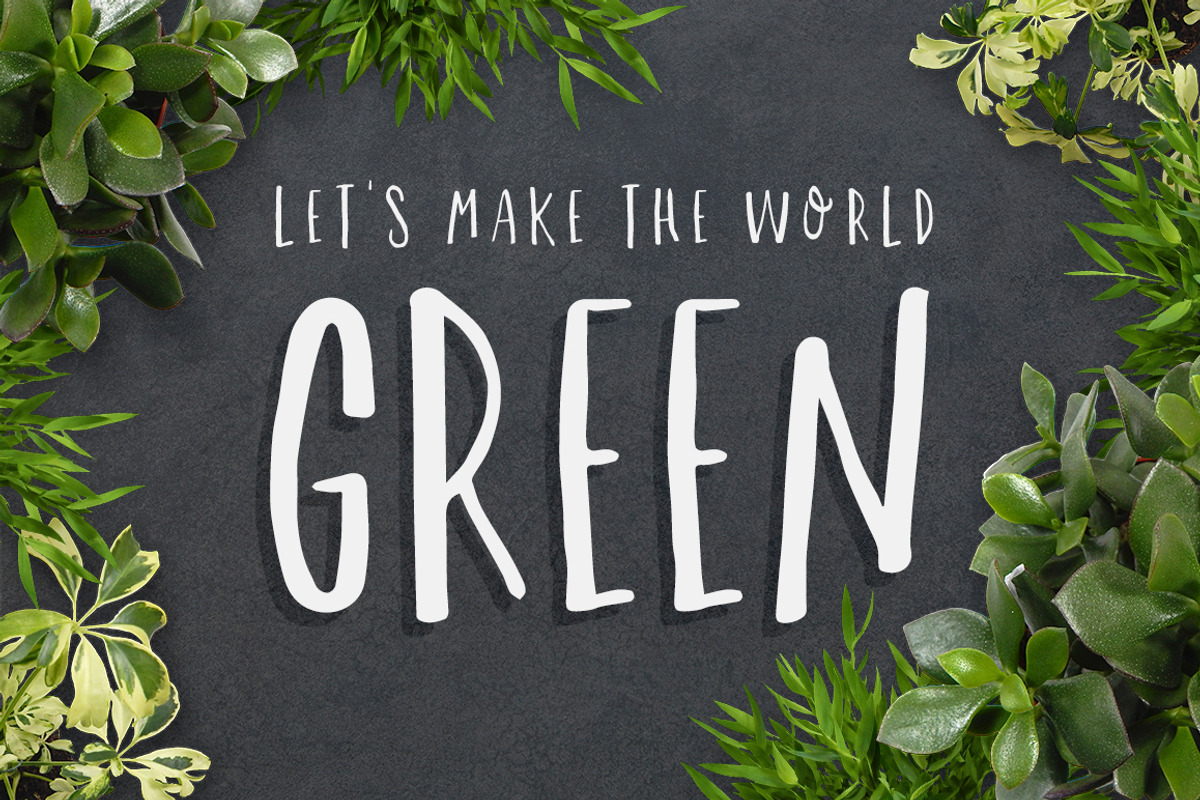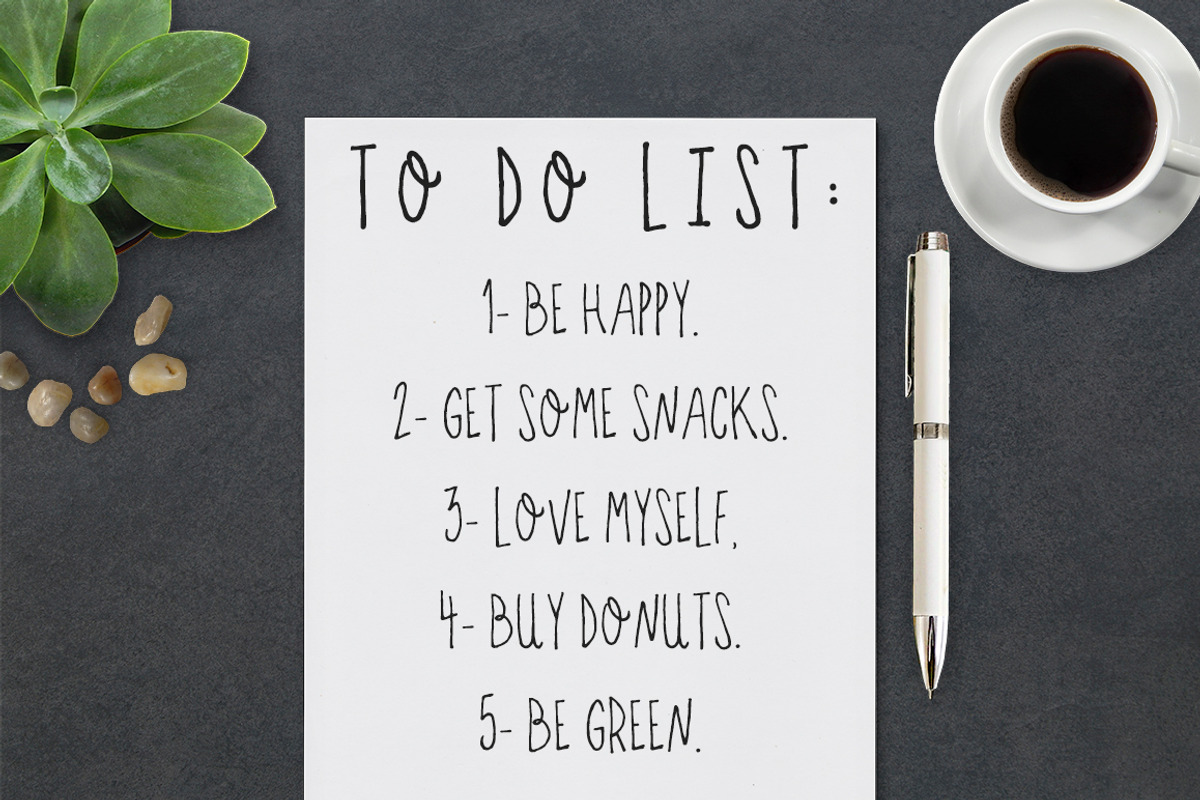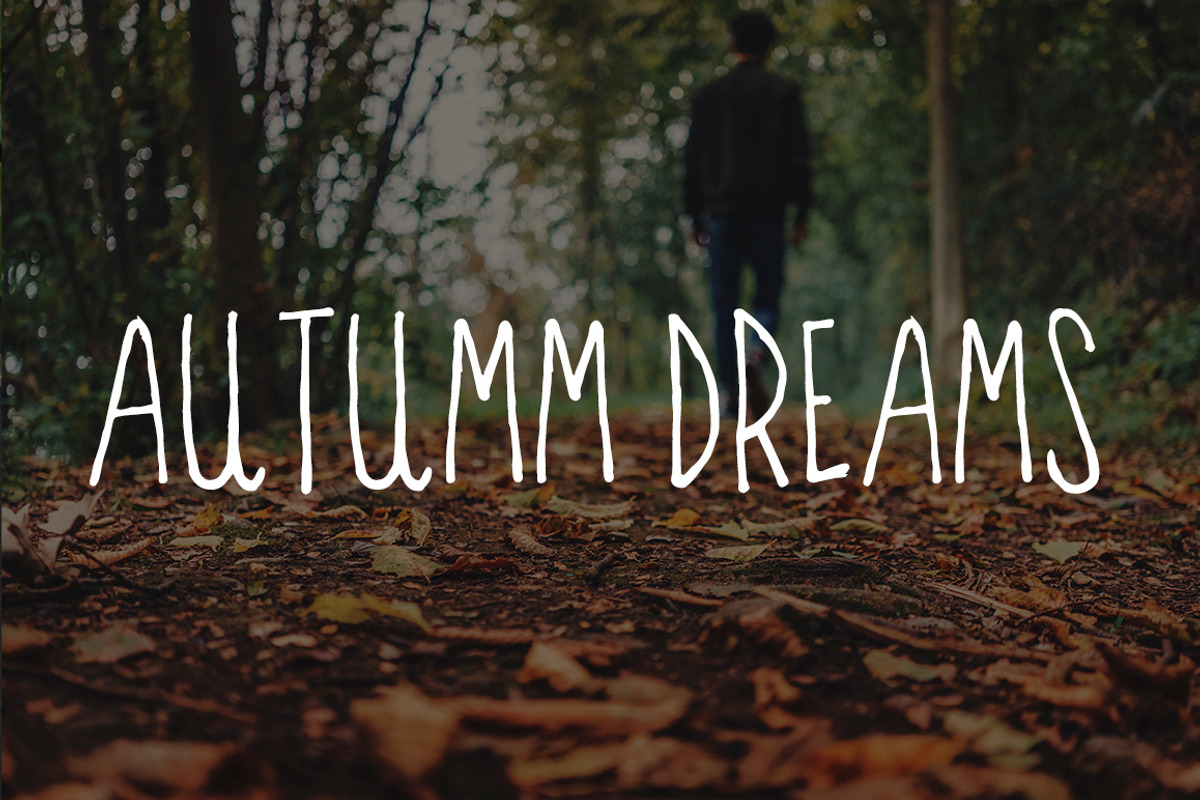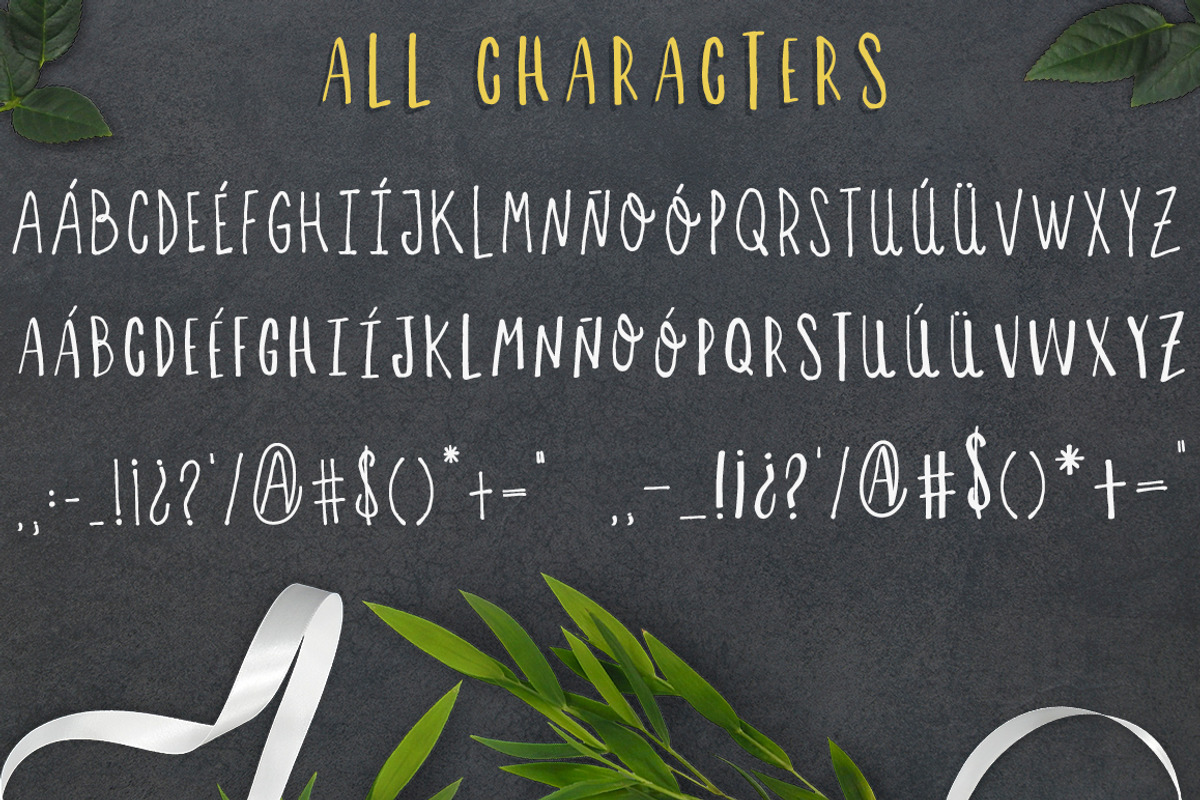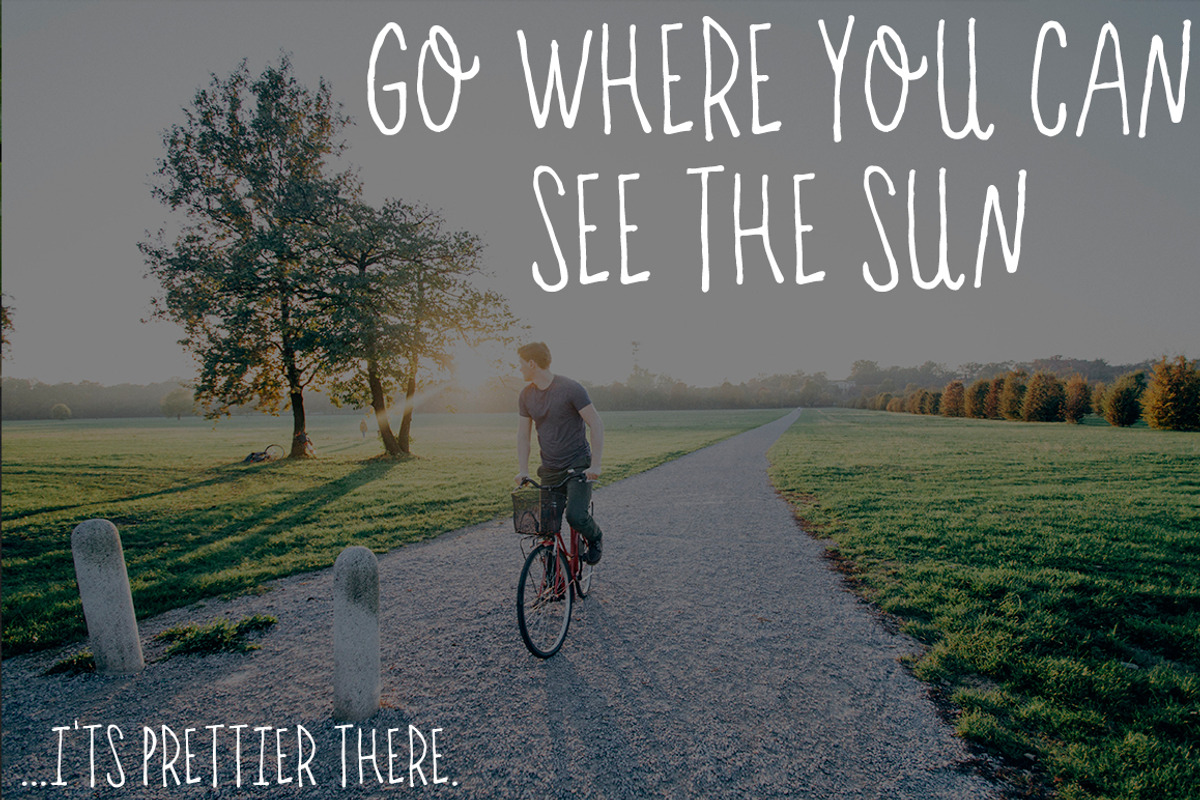
Letras feas - handmade font duo!
Letras feas - handmade font duo! by Andrea De Oliveira is a font selected for branding, posters, packaging, typography.
- Letrasfeas Thin
- Letrasfeas Regular
Why Letras feas - handmade font duo! is worth a look
Letras feas - handmade font duo! by Andrea De Oliveira fits naturally into Branding, posters, packaging, typography.